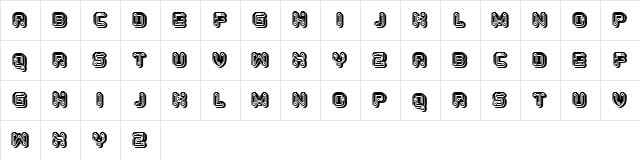
Advisor Regular
Design Context for Advisor
Advisor is a composed and adaptable typeface that performs quietly and consistently across a wide range of design contexts.